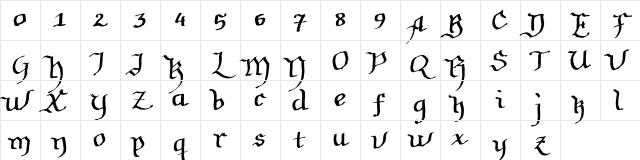
Complete Soft Notes SVG Sample Regular glyph index. Displaying only characters natively supported by Soft Notes SVG Sample Regular font.
Soft Notes SVG Sample is a composed and adaptable typeface that performs quietly and consistently across a wide range of design contexts.